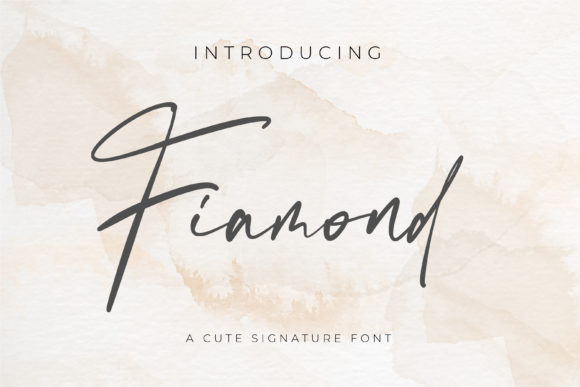
Fiamond Font
Prepare to be mesmerized by Fiamond Font, the epitome of elegance and sophistication in the world of script fonts. Designed with precision by the talented team at Vultype, this captivating font is a symphony of flowing strokes and delicate lines, specifically crafted to elevate your Cricut label designs to new heights of artistry.
With its enchanting appearance and graceful curves, Fiamond Font will transform your labels into mesmerizing masterpieces. Its elegant personality adds a touch of refinement and luxury to any project, making it the perfect choice for those seeking to create a lasting impression. It effortlessly harmonizes with photography designs, gracefully adorns product packaging, and adds a touch of magic to special events, effortlessly captivating the attention of all who lay eyes upon it.
Unleash your creativity and let Fiamond Font guide you on a journey of artistic expression. Its versatility knows no bounds, allowing you to effortlessly craft stunning designs that reflect your unique style and vision. Whether you're a seasoned Cricut crafter or just starting your creative adventure, Fiamond Font is your trusted companion, ensuring your projects exude elegance and sophistication.
Immerse yourself in the world of Fiamond Font and discover a new realm of design possibilities. Its exquisite beauty and enchanting charm will ignite your imagination and inspire you to create captivating labels that leave a lasting impression on your customers. Embrace the power of Fiamond Font and elevate your Cricut creations to new heights of artistry and excellence.